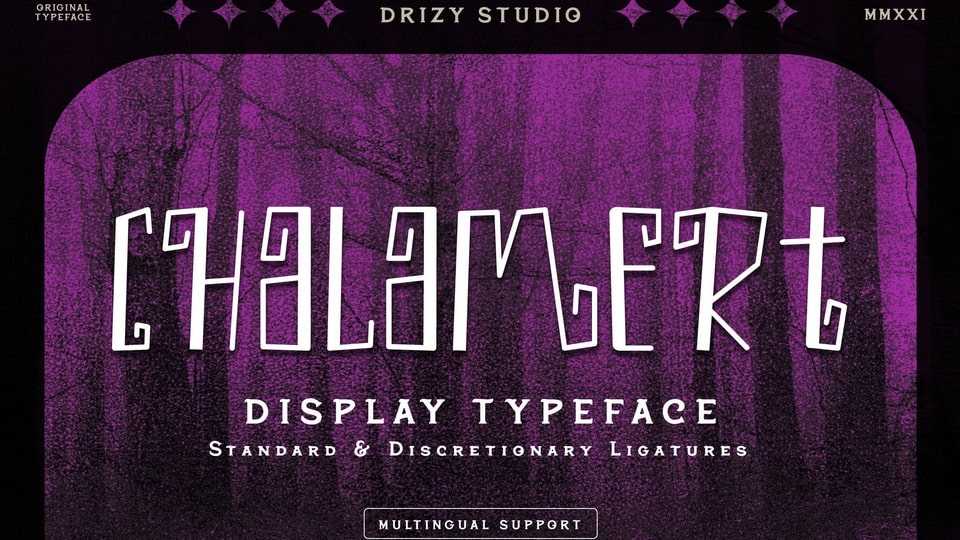
Download Chalamert font, a spooky display typeface with a funny and quirky look. Chalamert is very suitable for inclusion in Halloween and playful themes.
Designer: Drizy Studio